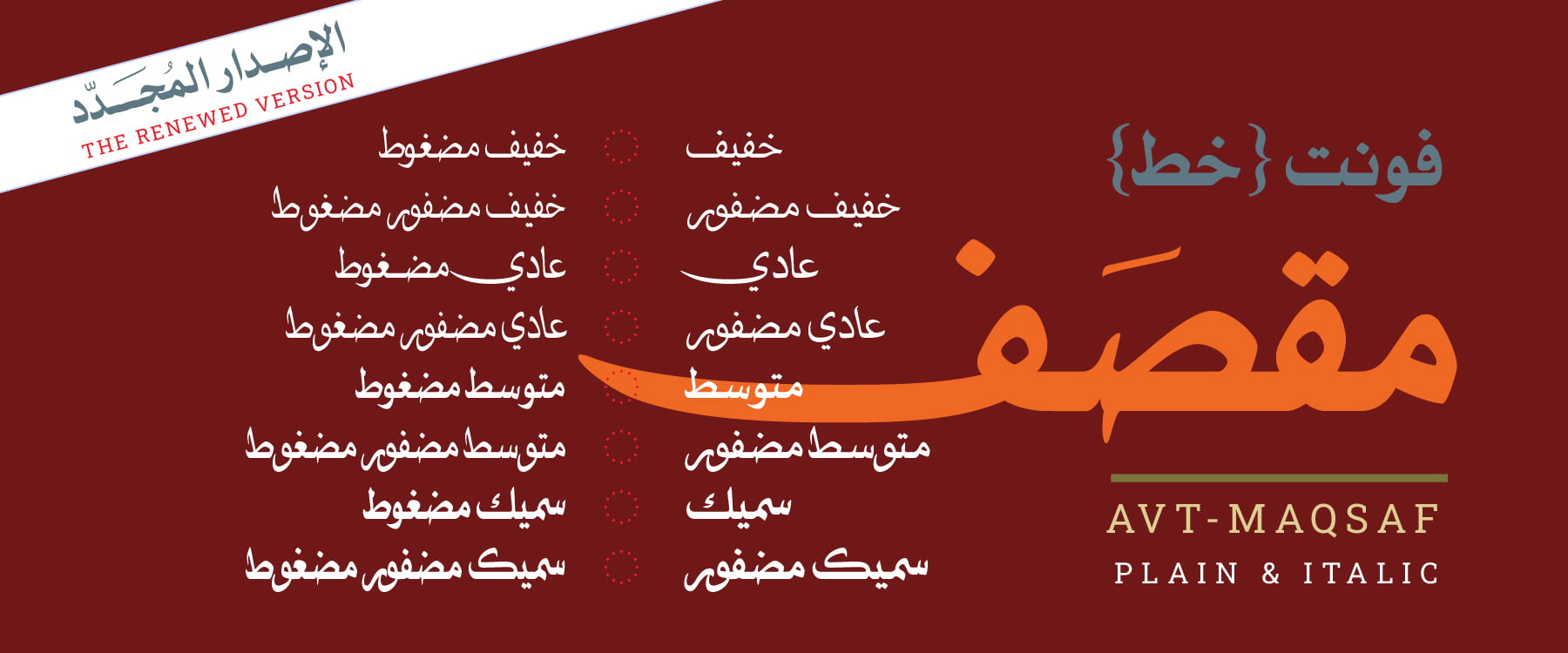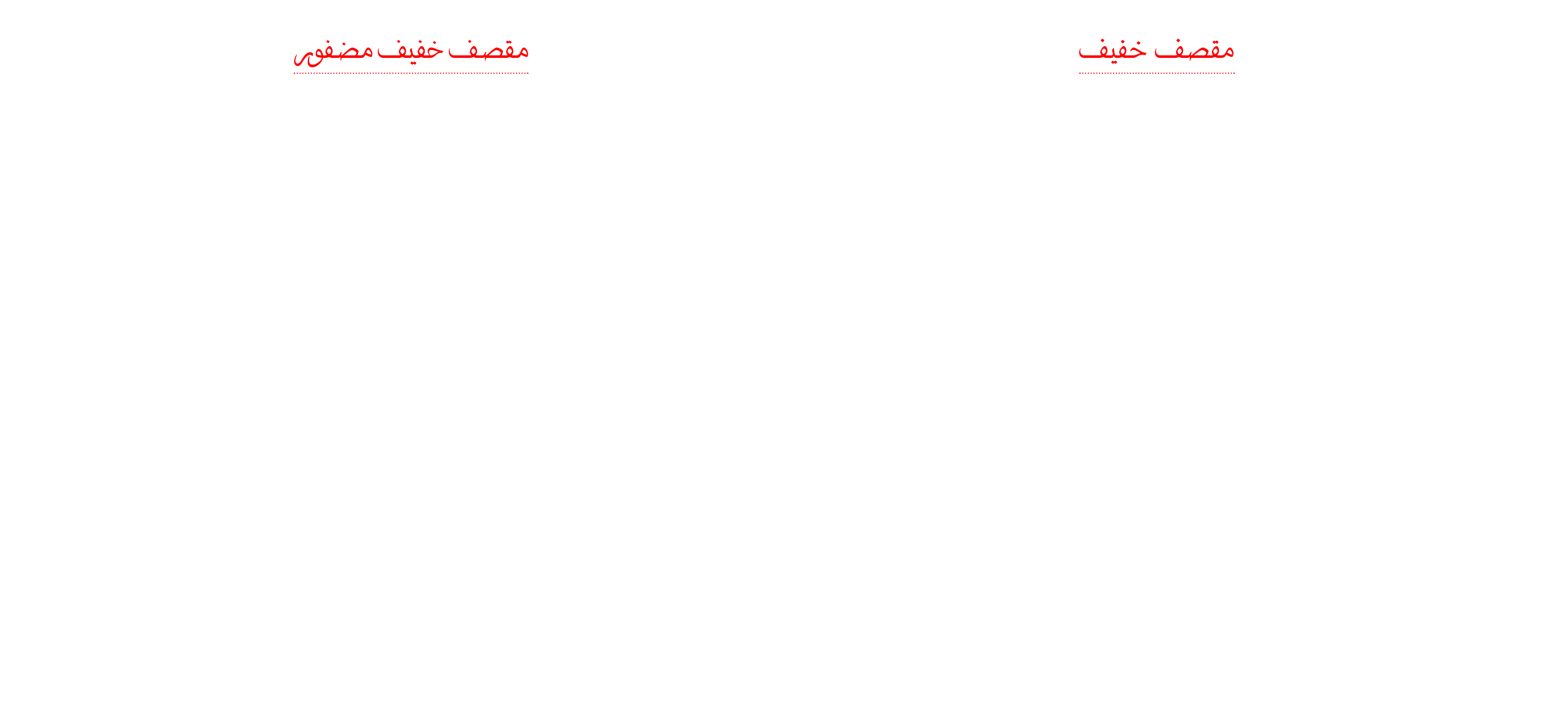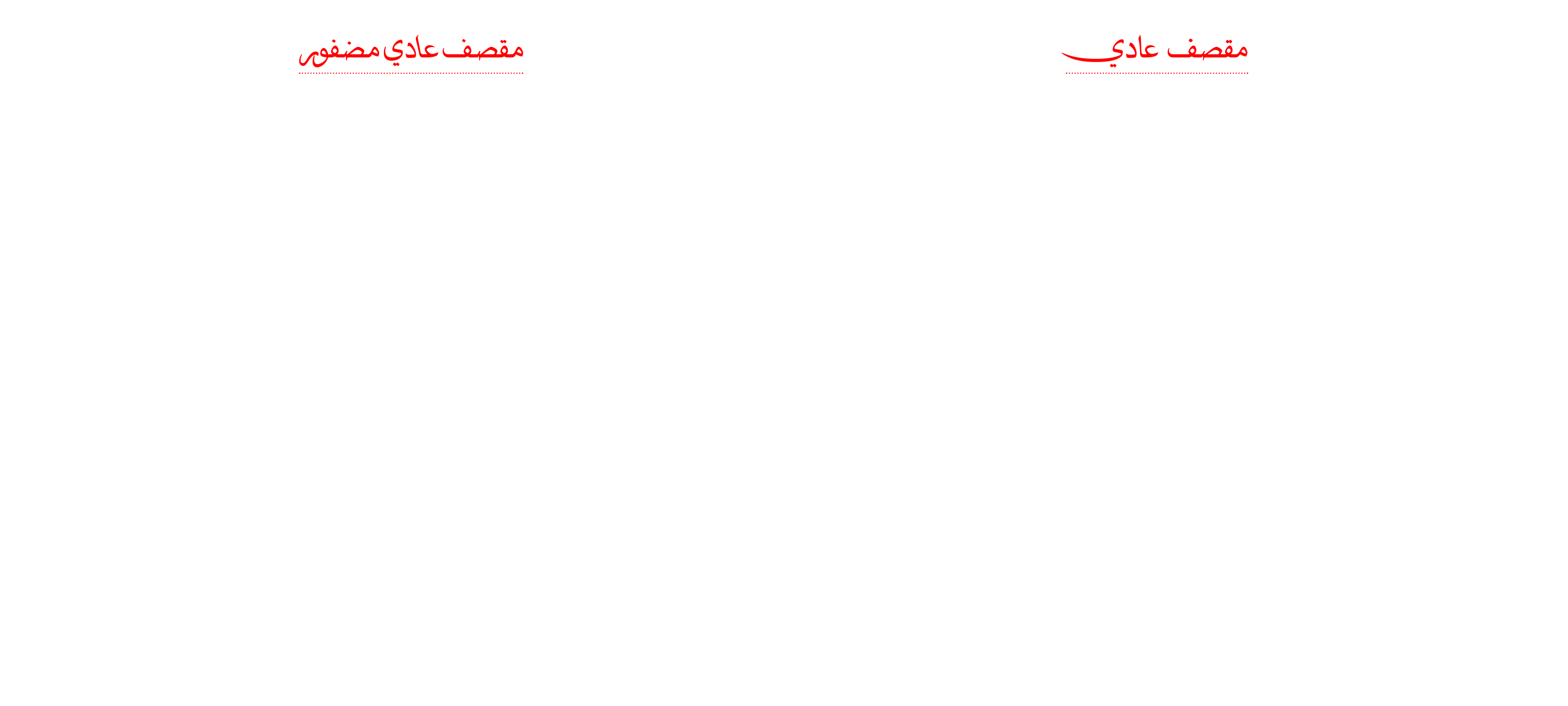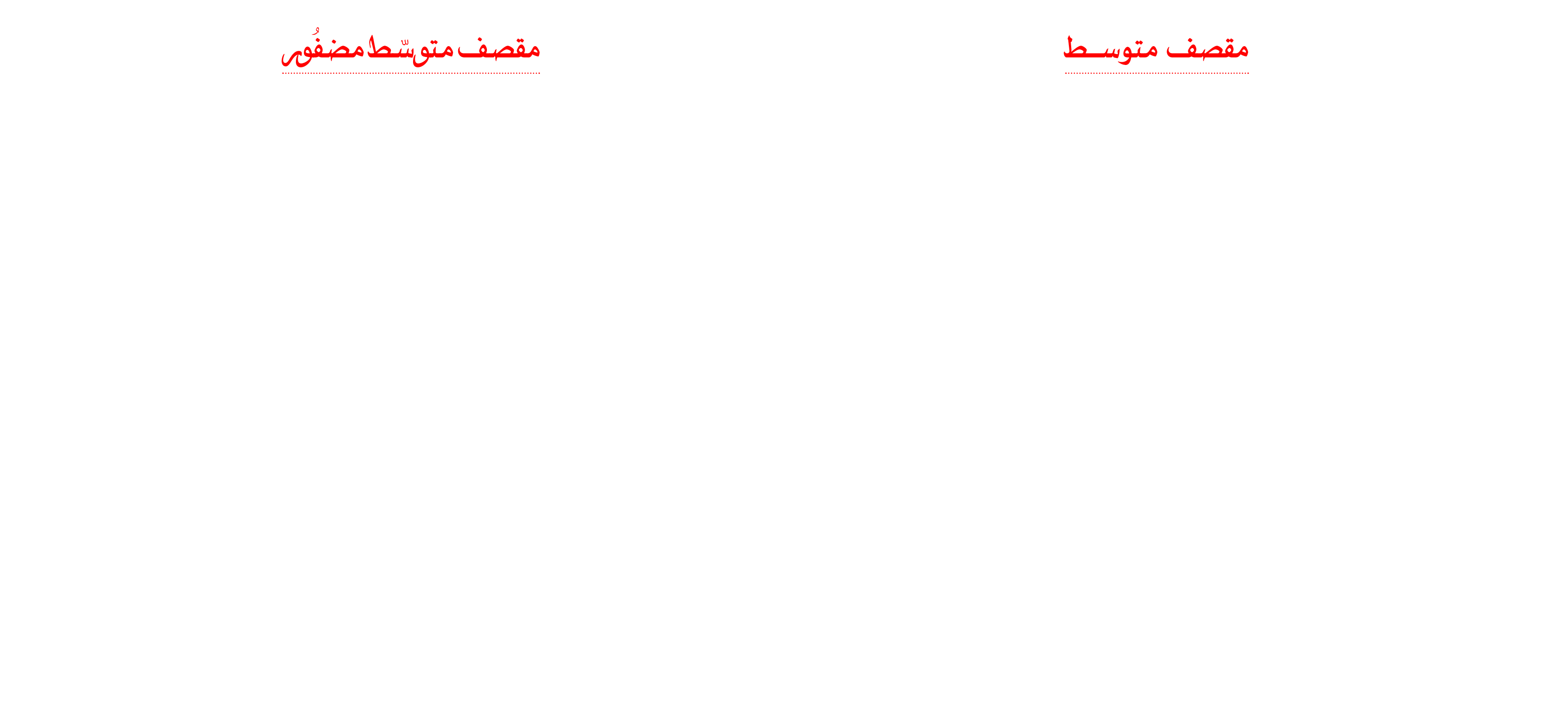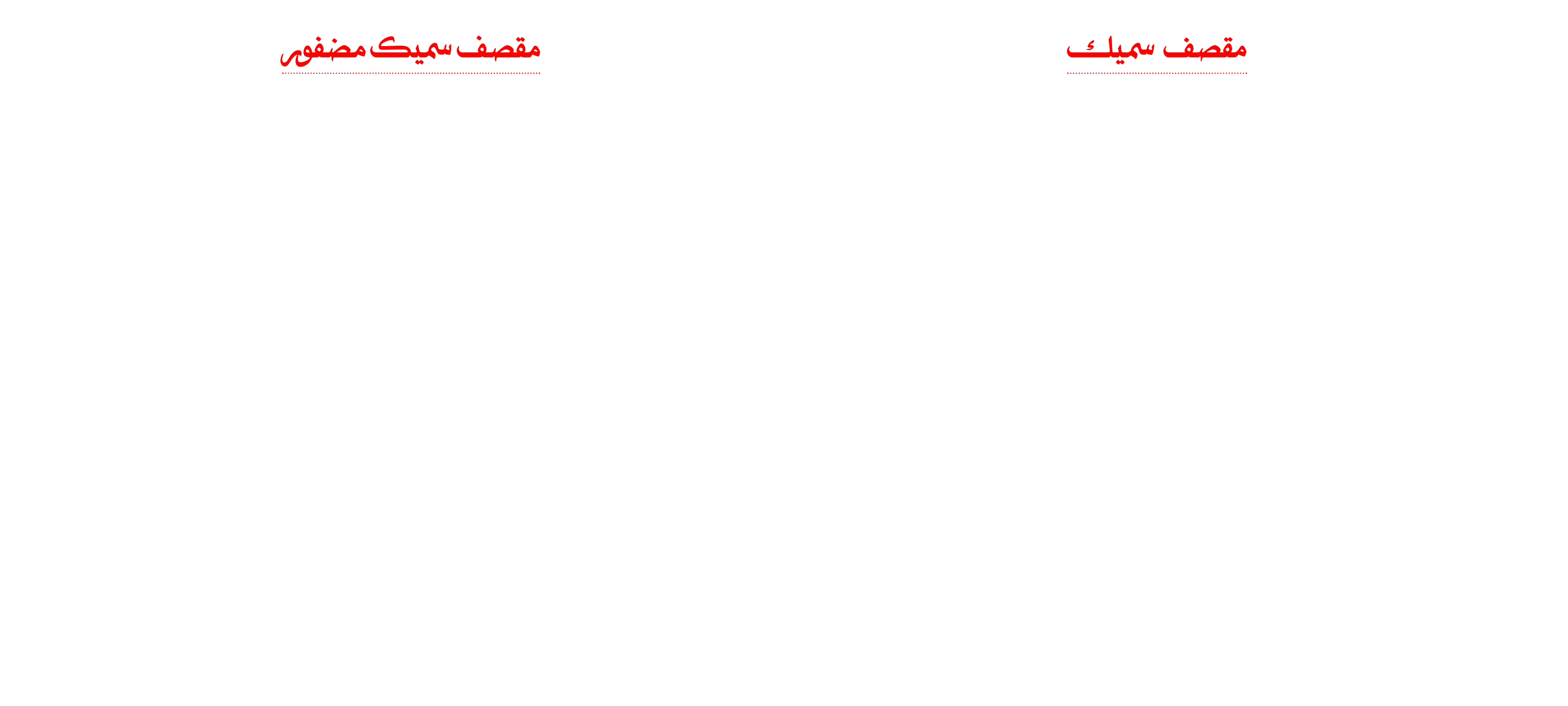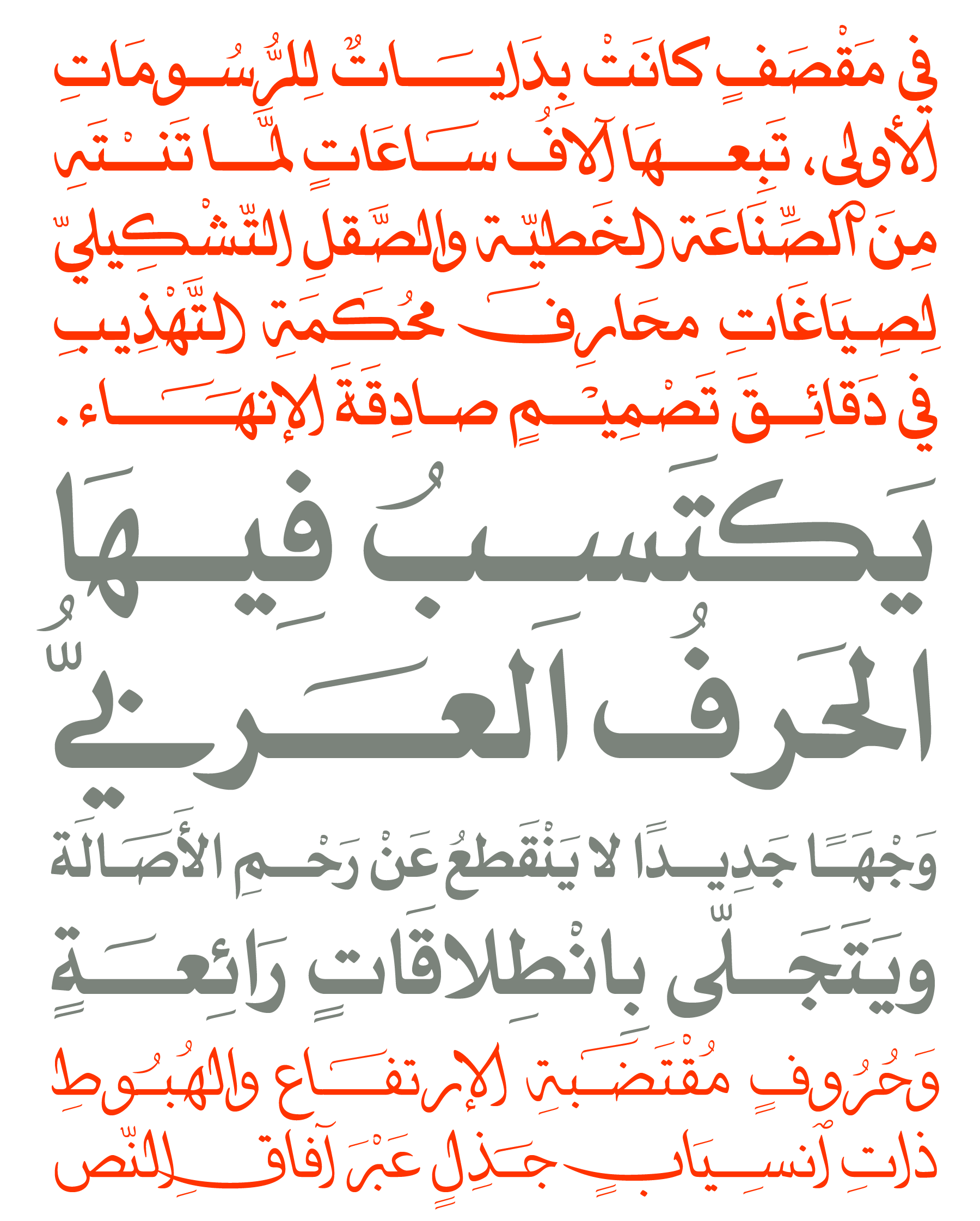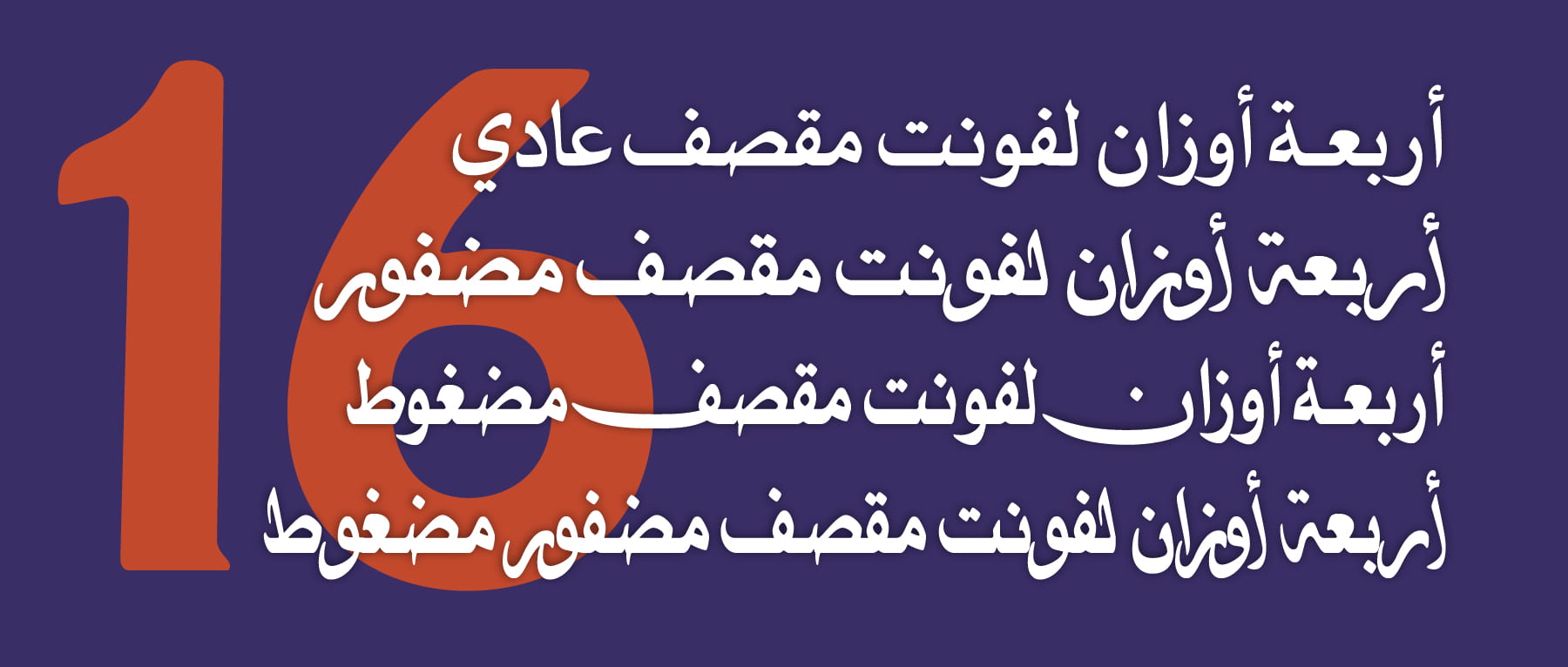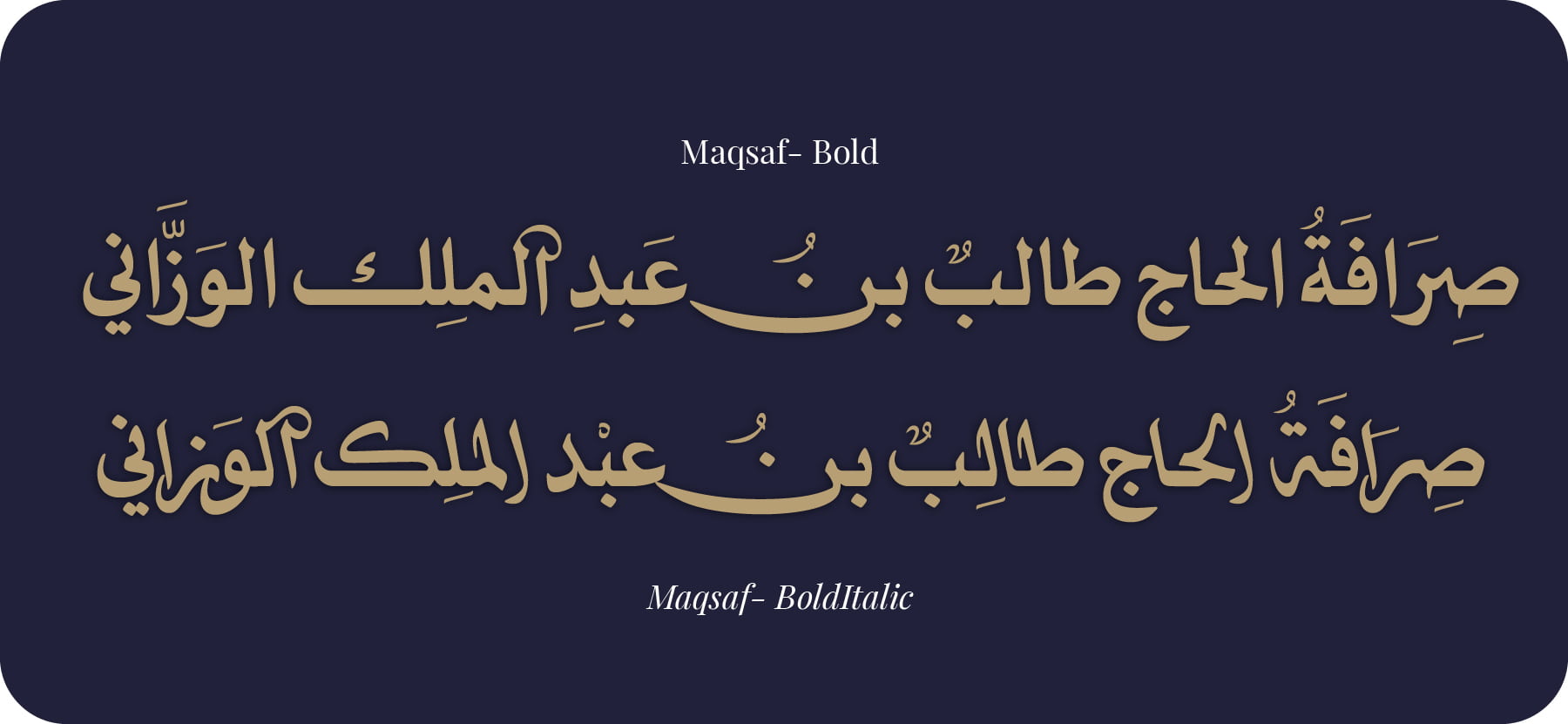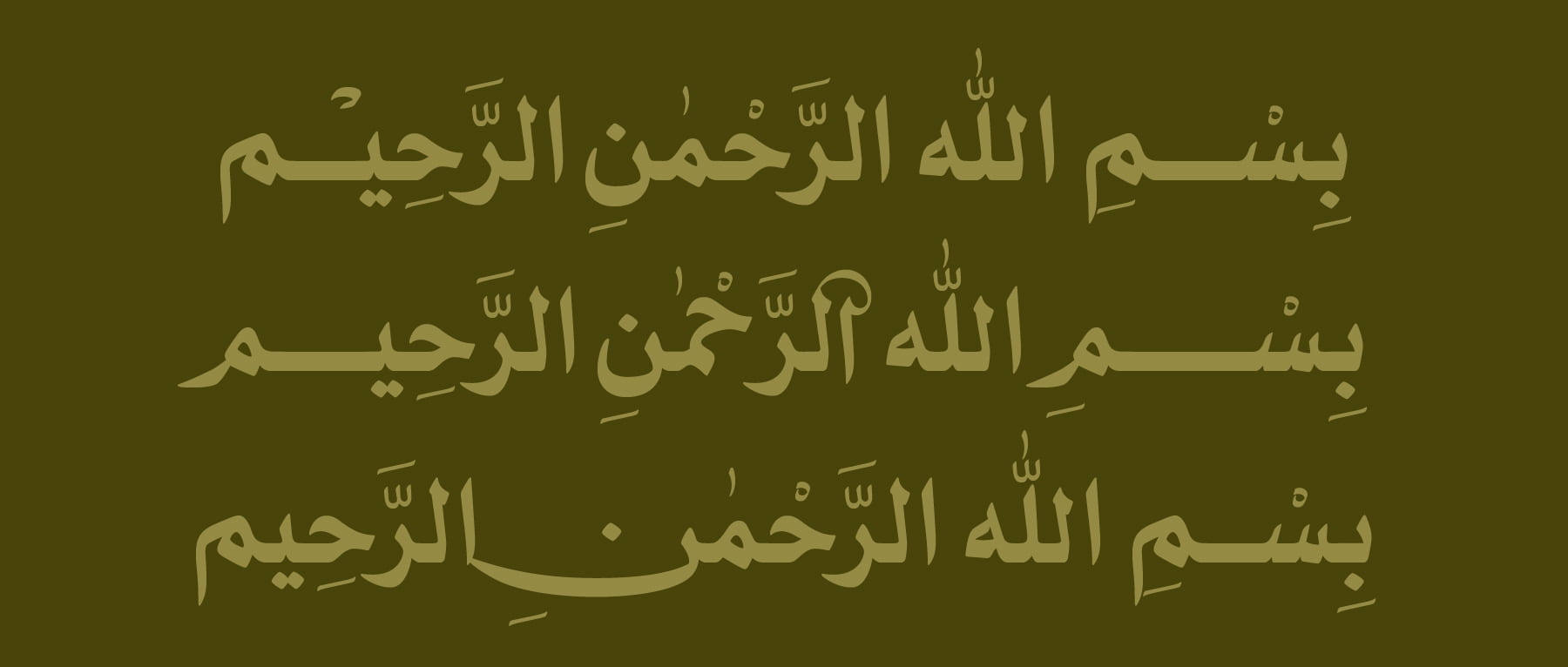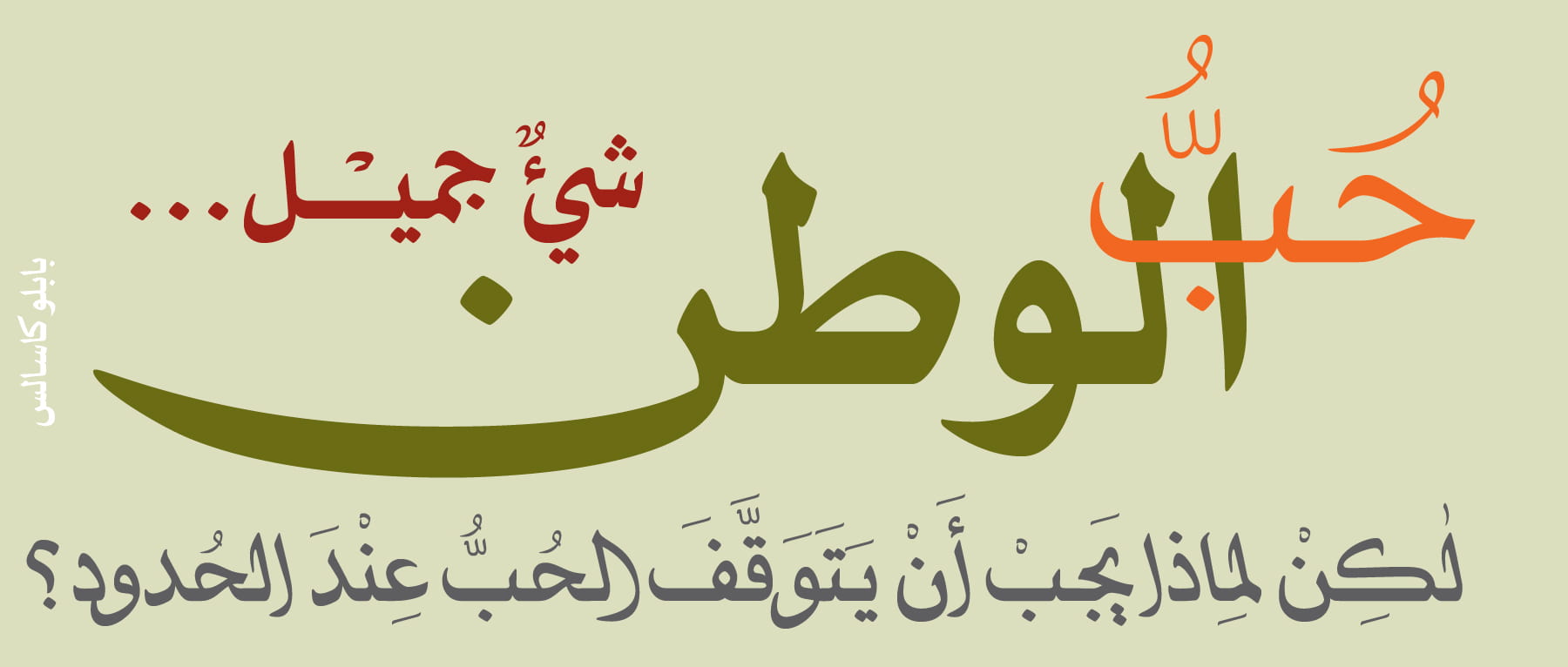
Weights & Styles
Maqsaf Light & LightItalic
Maqsaf Regular & Italic
Maqsaf Medium & MediumItalic
Maqsaf Bold & BoldItalic
Information
In 2001, the United Nations declared the year as the “Year of Dialogue Among Civilizations.” In a prestigious competition organized by UNESCO and Association Typographique Internationale (ATypI), the Maqsaf typeface was selected among the world’s 100 finest typefaces across global writing systems. It also received the distinguished Bukva:Raz award and was featured in the publication Culture • Language • Type by Graphis (2002).
The extensively updated edition of Maqsaf positions it among the most refined and elegant Linear-Naskh typefaces in the Arab world. Thousands of hours were devoted to the meticulous crafting and refinement of every glyph, resulting in a distinctive typographic identity that preserves the essence of classical Arabic calligraphic tradition while presenting it through a contemporary design language.
This balance is achieved through carefully controlled proportions, including low ascenders and compact descenders, creating a cohesive and structurally solid typographic texture that delivers exceptional readability, clarity, and visual harmony.
A major enhancement of the new release is the introduction of true italic styles, accompanied by a large collection of uniquely redesigned glyphs that enrich the family’s expressive range and functionality.
Maqsaf also includes an extensive set of advanced OpenType features and stylistic options, making it highly versatile for both sophisticated display typography and extended text composition.
Designer:
- Habib Khoury
Italic Style Compared Variants
OpenType Features
Discretionary Ligatures محارف مركبة اختيارية
Stylistic Alternates المحارف البديلة
Swashes محارف ممشوقة
Titling Alternates محارف العنونة
Numerals. الأرقام